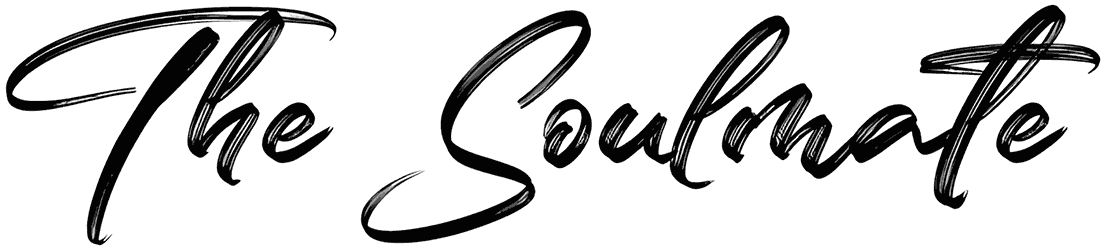
The Soulmate Font
We strongly recommend you add The Soulmate to your creative ideas, such as business cards, billboards, gift cards, greeting cards, and flyers. Since this brush font comes with a cursive style that dances along the baseline, it carries a sense of personalization, art, grunge, and whimsical. Generally, we offer you to overlook non-supporting numbers to notice how it levels up your graphic content.